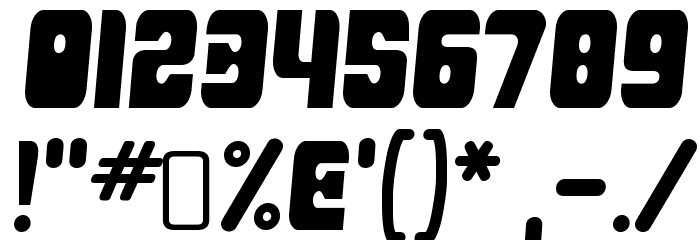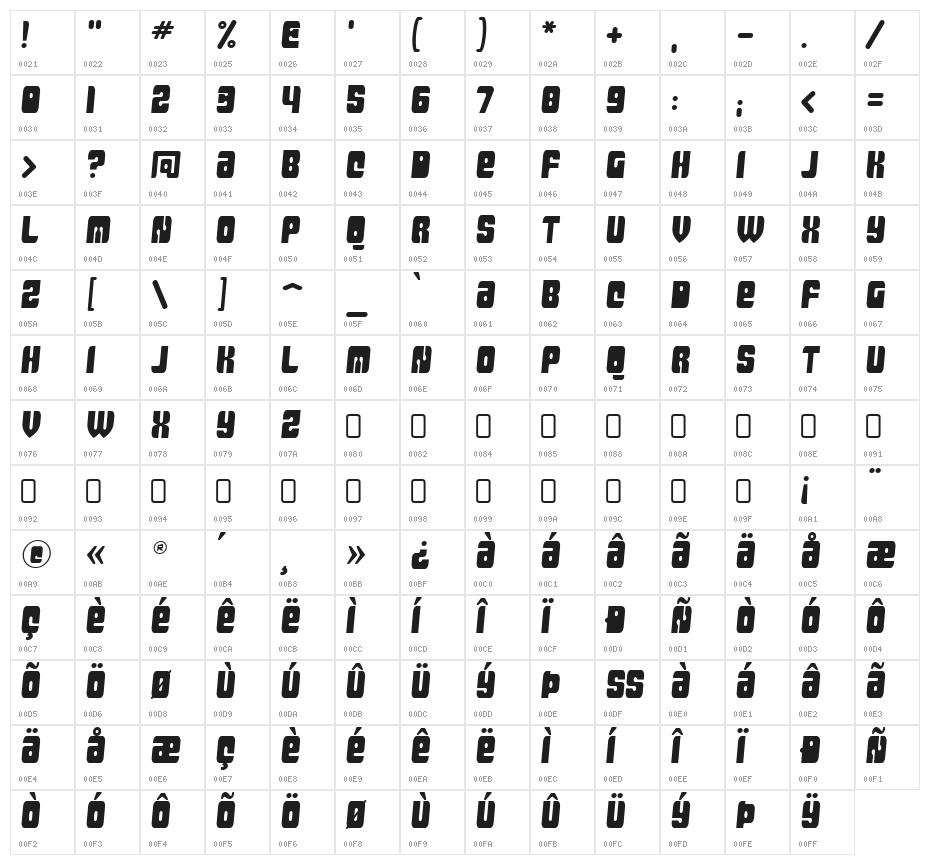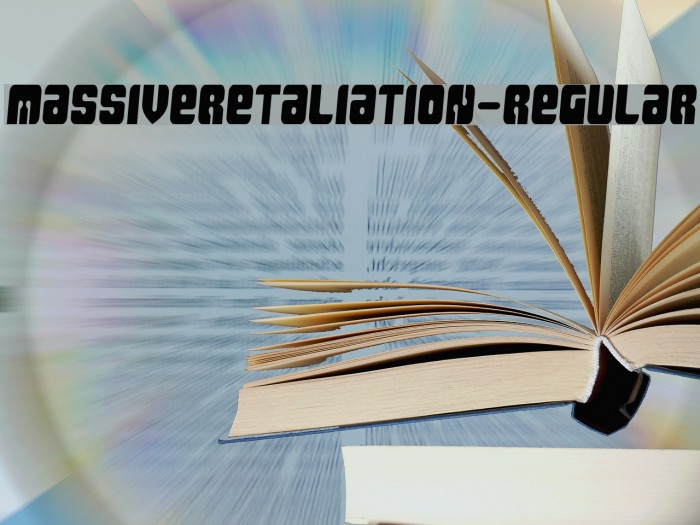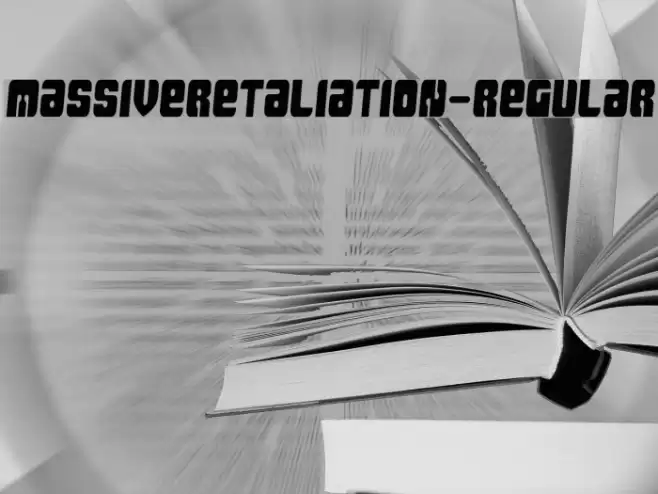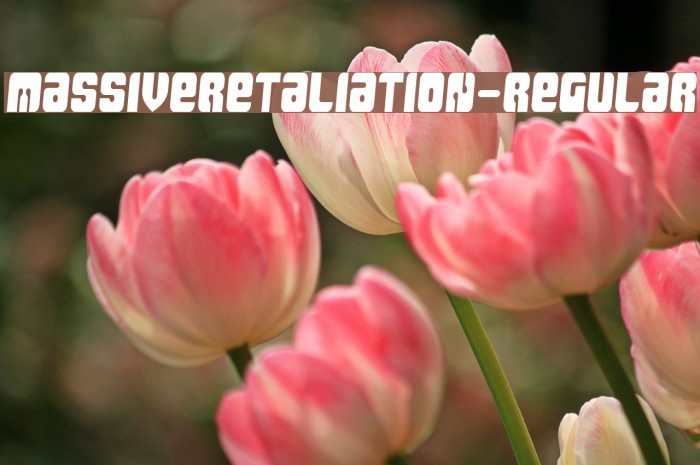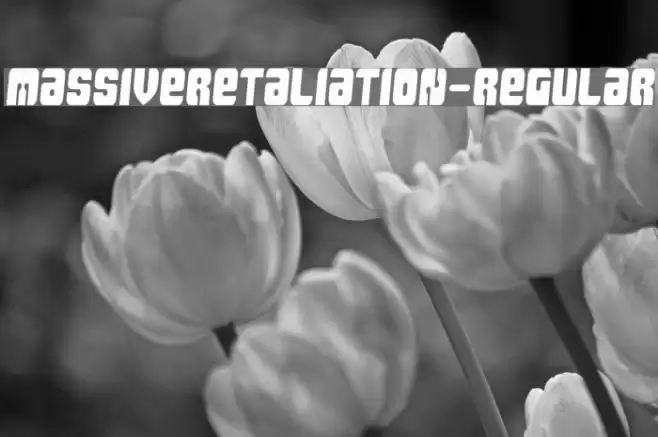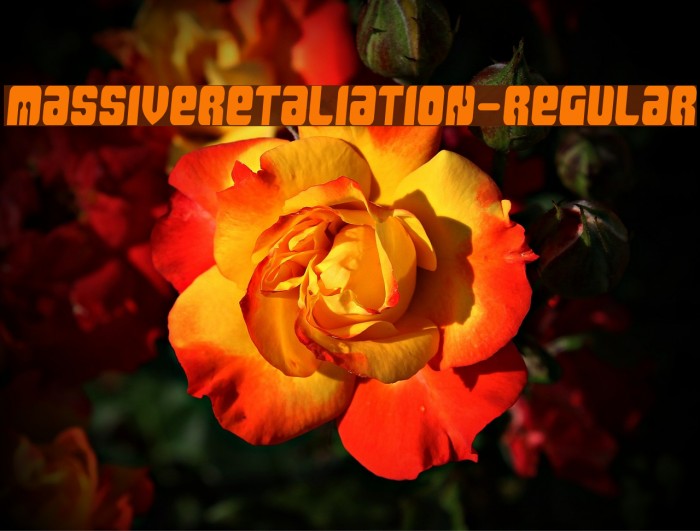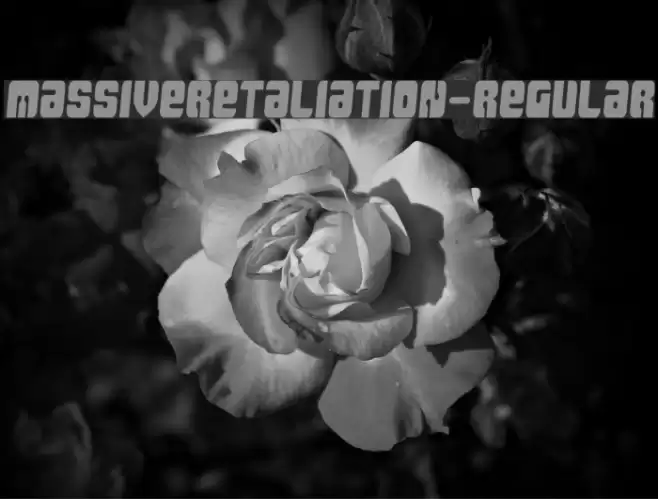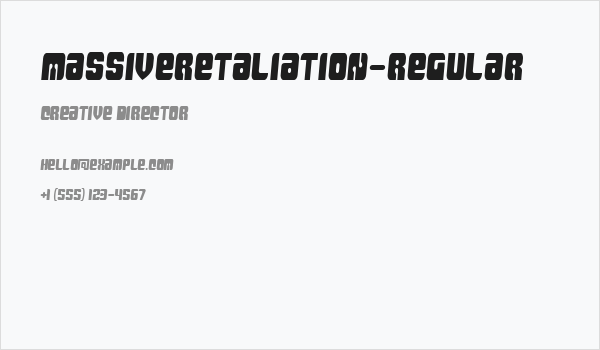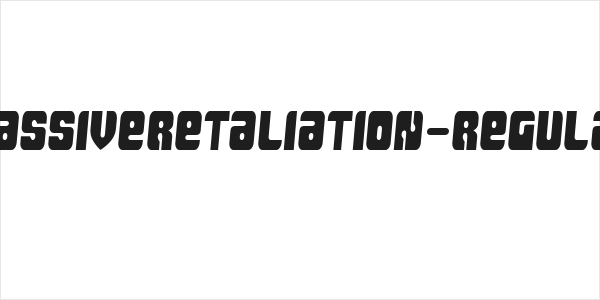
MassiveRetaliation-Regular Font
MassiveRetaliation-Regular Description
This font features a bold and impactful design with thick, rounded characters that convey a sense of strength and modernity. The uppercase and lowercase letters maintain a consistent weight, creating a cohesive look. The numbers are equally bold, ensuring they stand out in any context. Special characters are designed with the same robust style, making them suitable for attention-grabbing headlines or logos. The overall appearance is both contemporary and slightly retro, with a unique flair that sets it apart from more traditional fonts.